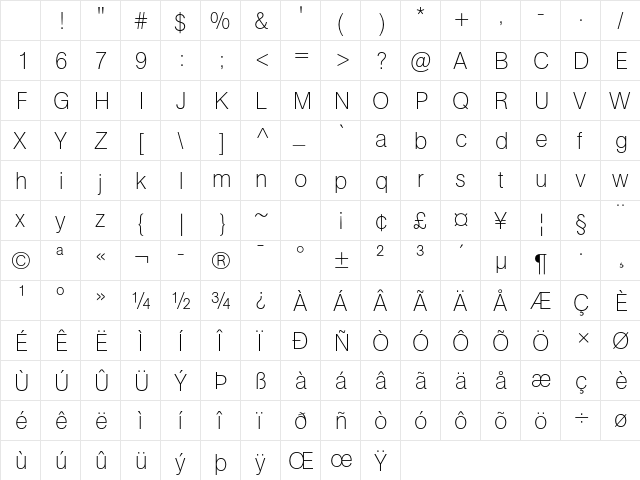
AG Book ExLt is a composed and adaptable typeface that performs quietly and consistently across a wide range of design contexts. Its slender proportions lend an understated elegance to any composition.